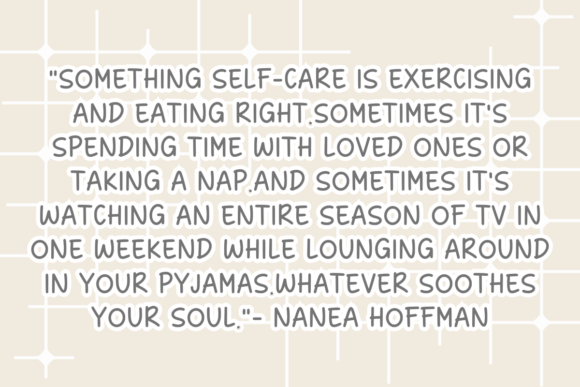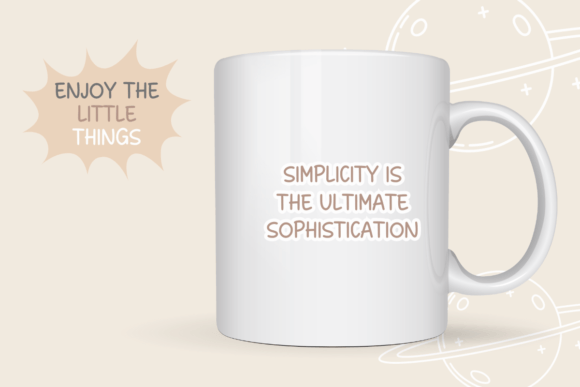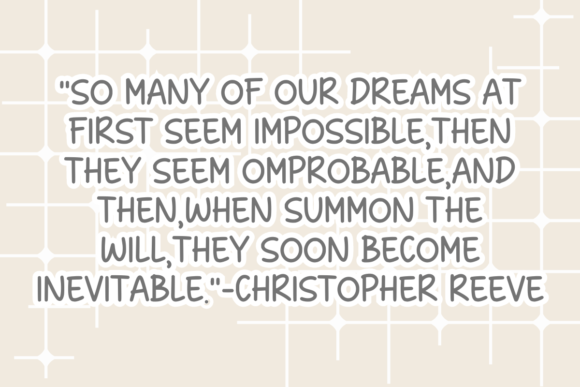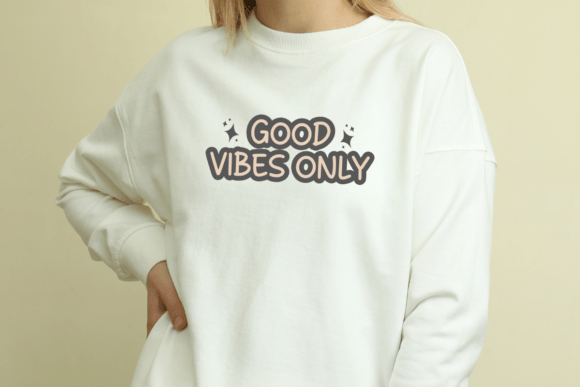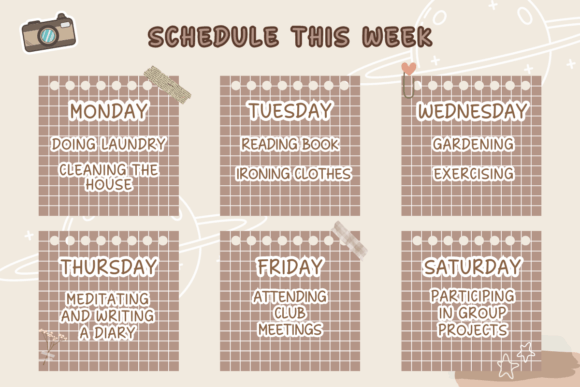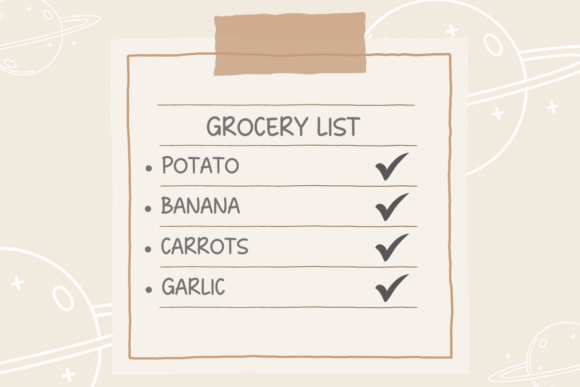
Introducing Back Fight Font: The Ultimate Choice for Designers and Crafters
Are you on the hunt for a font that exudes cuteness, quirkiness, and femininity? Look no further than Back Fight Font! This delightful sans serif font is designed to add a touch of natural charm to your designs, making it perfect for a wide range of projects. In this article, we’ll dive into the world of Back Fight Font and explore its features, uses, and benefits for designers and crafters.
What is Back Fight Font?
Back Fight Font is a carefully crafted sans serif font that boasts natural, cute strokes. Its unique design makes it an instant standout, perfect for adding a dash of personality to your creations. Whether you’re working on a journal, scrapbook, or sticker, Back Fight Font is sure to bring a smile to your face and a touch of whimsy to your designs.
Features of Back Fight Font
- Cute and Quirky: Back Fight Font is designed to be playful and fun, making it perfect for projects that require a touch of whimsy.
- Feminine: With its delicate strokes and elegant design, Back Fight Font is a great choice for projects that require a feminine touch.
- Sans Serif: The clean and simple sans serif design of Back Fight Font makes it easy to read and versatile for various uses.
- Natural Strokes: The font’s natural strokes give it a hand-drawn feel, adding to its charm and character.
Uses of Back Fight Font
Back Fight Font is incredibly versatile and can be used for a wide range of projects, including:
- Journals: Add a touch of personality to your journal pages with Back Fight Font.
- Scrapbooks: Use Back Fight Font to create memorable and visually appealing scrapbook pages.
- Stickers: Back Fight Font is perfect for creating cute and quirky stickers.
- Planners: Add a touch of whimsy to your planners and organizers with Back Fight Font.
- Interior KDPs: Use Back Fight Font to create visually appealing interior designs for your Kindle Direct Publishing (KDP) projects.
- Quotes: Back Fight Font is perfect for creating inspiring and visually appealing quotes.
- Women’s T-Shirts: Use Back Fight Font to create cute and quirky designs for women’s t-shirts.
- Grocery: Add a touch of personality to your grocery lists and shopping bags with Back Fight Font.
Benefits of Using Back Fight Font
So, why choose Back Fight Font for your projects? Here are just a few benefits:
- Unique and Eye-Catching: Back Fight Font is sure to grab attention and add a touch of personality to your designs.
- Versatile: With its wide range of uses, Back Fight Font is a great addition to any designer’s toolkit.
- Easy to Read: The clean and simple design of Back Fight Font makes it easy to read, even at small sizes.
- Feminine Touch: Back Fight Font adds a touch of femininity to your designs, making it perfect for projects that require a delicate touch.
In conclusion, Back Fight Font is a delightful sans serif font that is sure to add a touch of cuteness, quirkiness, and femininity to your designs. With its natural strokes and versatile design, it’s perfect for a wide range of projects, from journals and scrapbooks to stickers and planners. Whether you’re a designer or crafter, Back Fight Font is a great choice for anyone looking to add a touch of personality to their creations.